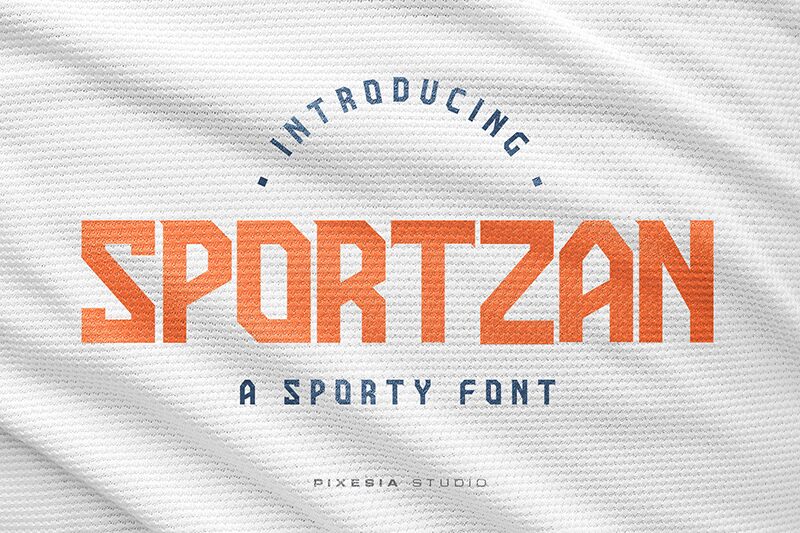
Sportzan
Sportzan font by Pixesia Studio is a geometric, sharp, and high-tech display typeface with a unique futuristic vibe. Its letters feature interesting cuts, missing connections, sharp angles, and powerful tops/bottoms that together create a unique aesthetic. Special effects such as stripes and lines on the inside (different between upperlows) further contribute to its intended appearance.
As an allcaps free display font, Sportzan is suitable for creative designs like posters, typography artworks/t-shirts, logotypes/branding designs/visual identities etc. It can also be used for technology presentations/CVs or portfolios/websites in addition to packaging design ideas.